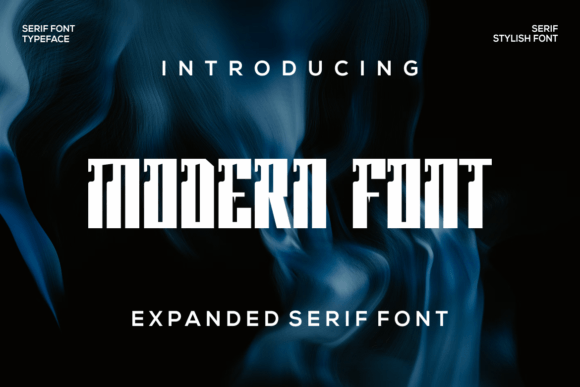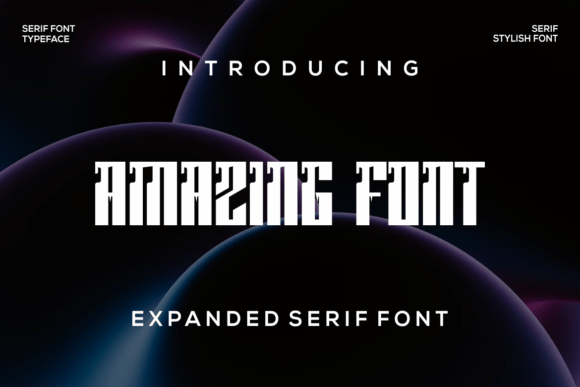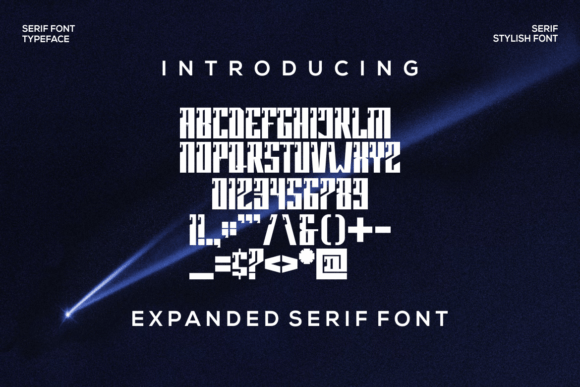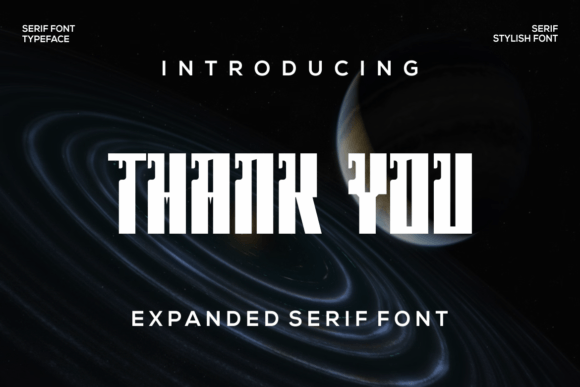
As I began to work with Bleddus, I realized it was more than just a pretty face. Its unique style and versatility made it perfect for a wide range of projects. In this article, I’ll share my experience with Bleddus, its features, and how to make the most of it in your designs.
- ✅ Modern and trendy: Bleddus has a fresh, contemporary feel that’s perfect for brands looking to make a statement.
- ✅ Highly legible: Despite its stylized appearance, Bleddus remains clear and easy to read, even at smaller sizes.
- ✅ OpenType features: Bleddus supports a range of OpenType features, including glyphs and stylistic alternates, giving you plenty of creative options.
- ⚠️ Limited use in formal contexts: Bleddus is a display font, so it’s best used sparingly and in larger sizes. It may not be suitable for body text or formal documents.
- ⚠️ Some characters may require adjustment: Depending on your design, you may need to tweak certain characters to ensure optimal spacing and alignment.
The Story Behind Bleddus: Designer Inspiration
Bleddus was designed by a team of creatives who wanted to create a font that embodied the spirit of modern design. Inspired by the urban landscape and the world of fashion, Bleddus is a reflection of the contemporary aesthetic. Its unique style and versatility make it perfect for designers, crafters, and creative hobbyists looking to add a touch of sophistication to their projects.
| Font Name | Bleddus Font |
Q: What type of projects is Bleddus best suited for?
A: Bleddus is a display font, making it perfect for headlines, titles, logos, and other attention-grabbing elements. It’s ideal for trendy projects, branding, and advertising.
Q: Can I use Bleddus for body text?
A: While Bleddus is legible, it’s not recommended for body text due to its stylized appearance. It’s best used sparingly and in larger sizes.
Q: Does Bleddus support OpenType features?
A: Yes, Bleddus supports a range of OpenType features, including glyphs and stylistic alternates. This allows you to experiment with different styles and creative options.